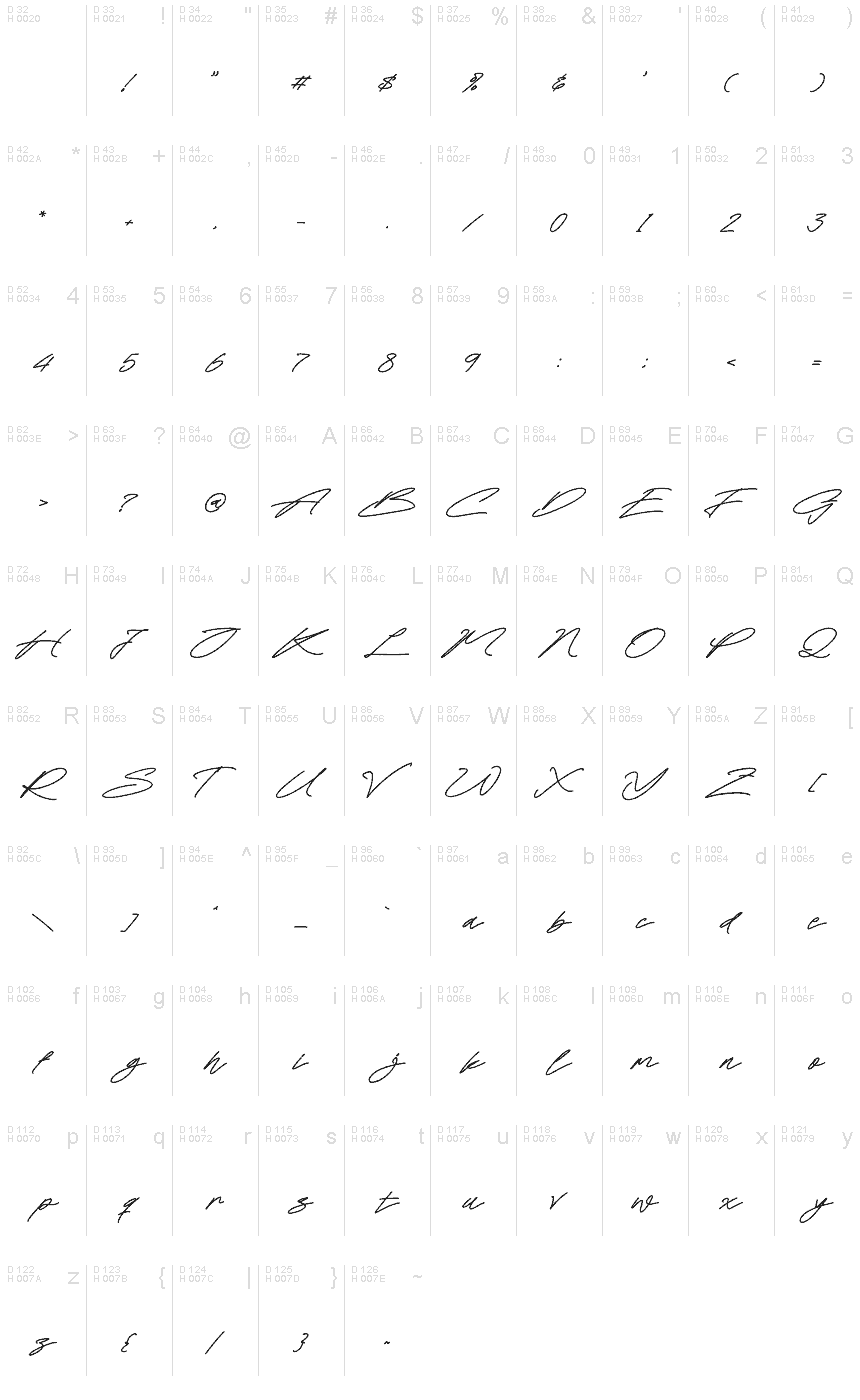
Kasttelin Polimeka
Kasttelin Polimeka font by Letterena Studios is a light handwritten font. This expressive font features a fluid style with an artistic flair and evokes modern signature styles. The letters are super elegant and will undoubtedly deliver an outstanding personal touch to whatever your project is about.
The beautiful Kasttelin Polimeka free handwritten font fits multiple use cases. Amazing as a tattoo design, on wedding invitations, as part of your logo design, on branding material, greeting cards, social media posts or covers, product packaging, event posters or flyers and much more.